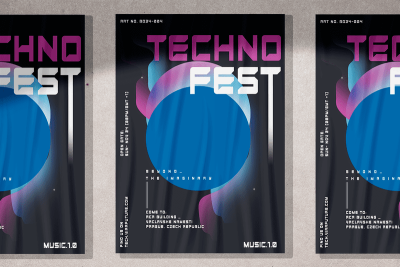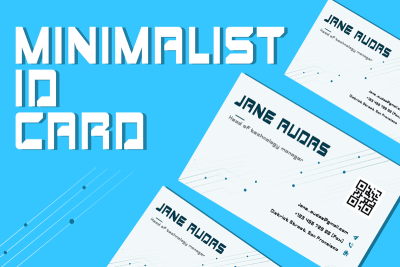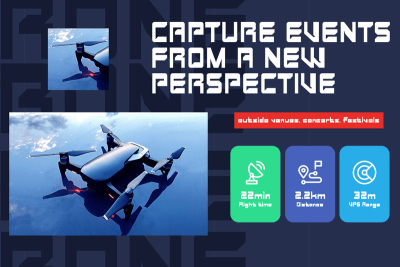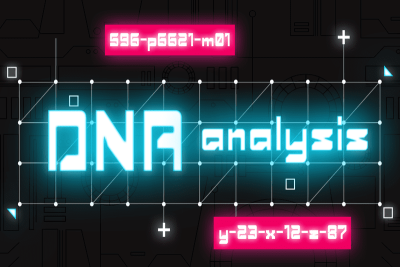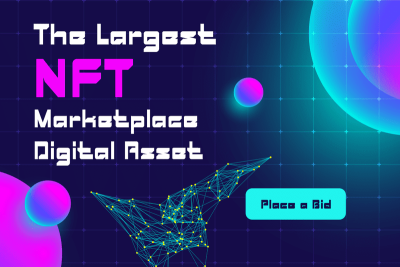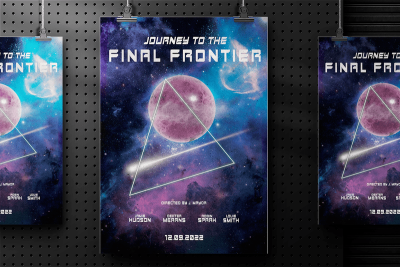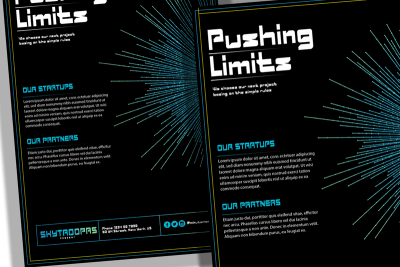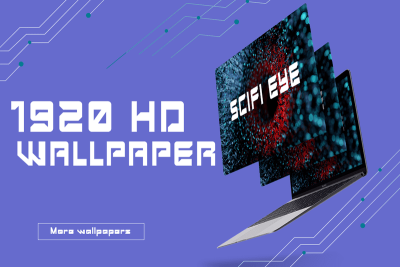
The Futuristic Font Minuteman infuses your projects with boldness and creativity through its techno-inspired design. Furthermore, its sharp edges and clean, geometric letterforms make it a standout choice for futuristic branding, digital interfaces, and sci-fi-themed visuals. For example, you can use it for tech presentations, gaming titles, or innovative advertisements to ensure a modern, cutting-edge aesthetic.
This typeface empowers designers to create impactful visuals with its balance of clarity and futuristic flair. As a result, Minuteman isnโt just a typeface; itโs a design tool that elevates any project. Its versatility ensures excellent performance in digital and print mediums alike. Therefore, incorporating it into headlines, logos, posters, or web graphics helps you achieve a dynamic appearance and professional finish.
Elevate Your Designs with Futuristic Font Minuteman
The Futuristic Font Minuteman adapts seamlessly to various creative needs, allowing designers to unleash their creativity. Moreover, its bold structure and industrial inspiration make it an ideal choice for tech-savvy audiences. The font’s layout prioritizes readability, ensuring every letter stands out without disrupting the design.
Create depth and personality in your visuals with Minuteman. For instance, whether you’re designing a sci-fi movie poster or a high-tech app interface, this font aligns perfectly with modern aesthetics. Sharp details and vibrant style make it visually striking, while precise geometric details offer a balance of professionalism and creativity.
In addition, designers value this font for its flexibility across platforms. It works seamlessly on digital screens and print materials, maintaining consistency in branding while adapting to creative challenges.
Furthermore, the fontโs distinctive appearance ensures it will capture attention and leave a lasting impression. Its ability to evoke a sense of modernity and innovation makes it an invaluable asset for industries like technology, entertainment, and digital media. Minutemanโs design is not only functional but also artistic, offering an elegant solution for those seeking to push creative boundaries.
In conclusion, the Futuristic Font Minuteman combines boldness, adaptability, and sophistication, making it an essential tool for any modern creative project. Ultimately, adding it to your toolkit will transform your designs into compelling works of art.